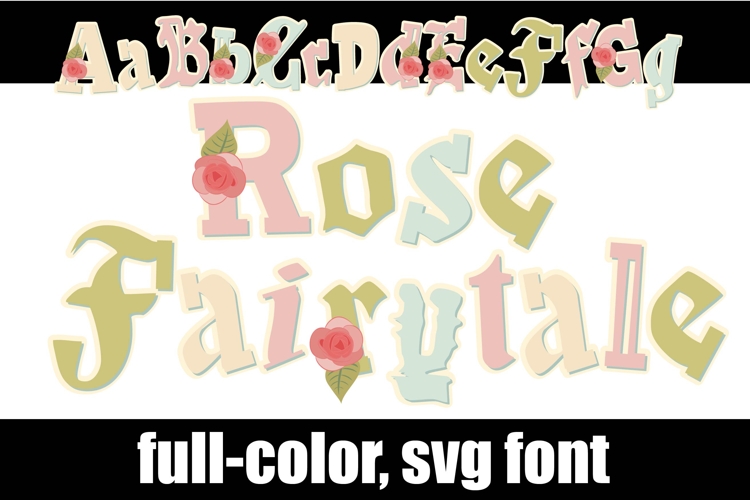
Rose Fairytale Color Font
This full-color, bouncy, blackletter font with florals throughout in springy palette. There is an alt case of additional colors of each letter that you can access through your system's character map.